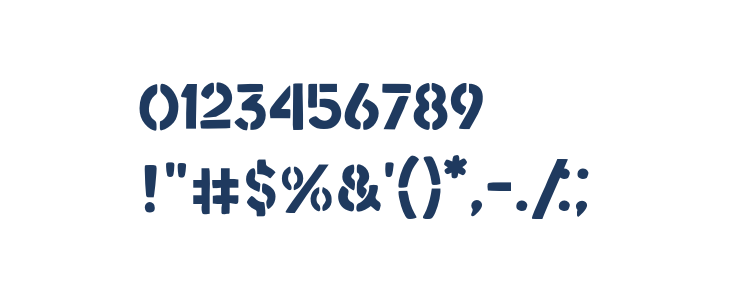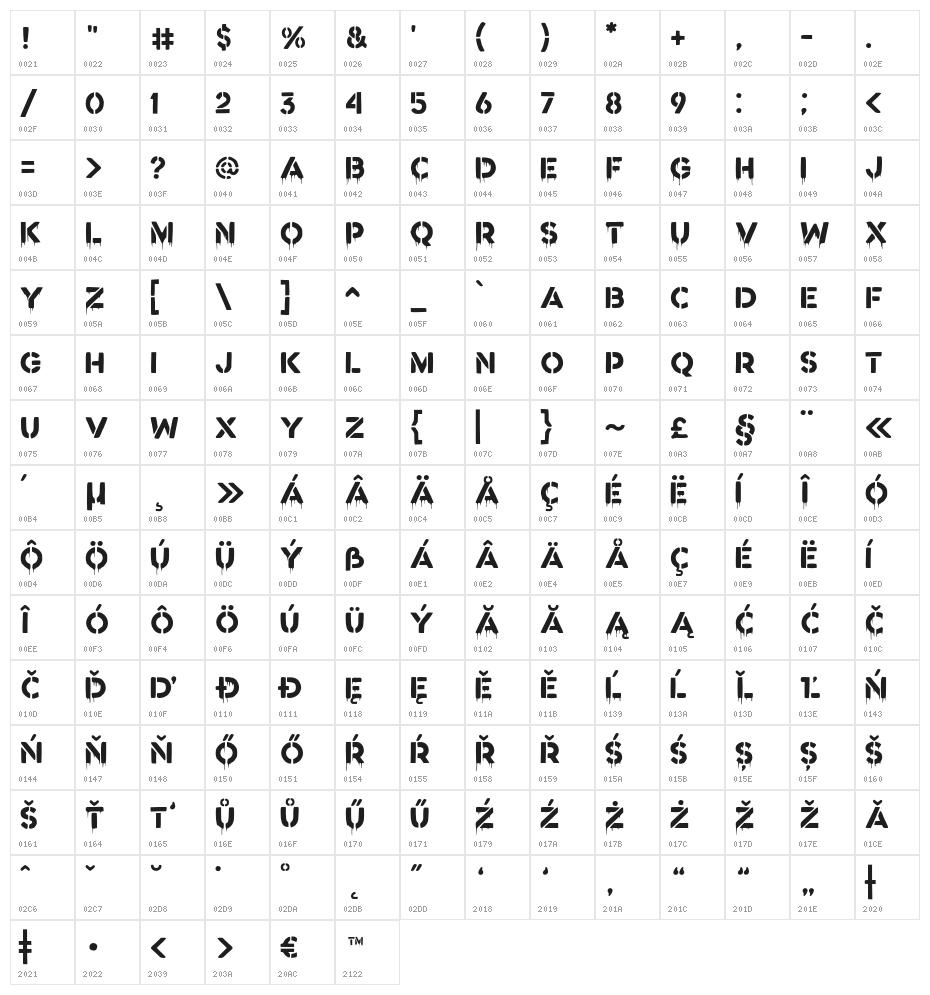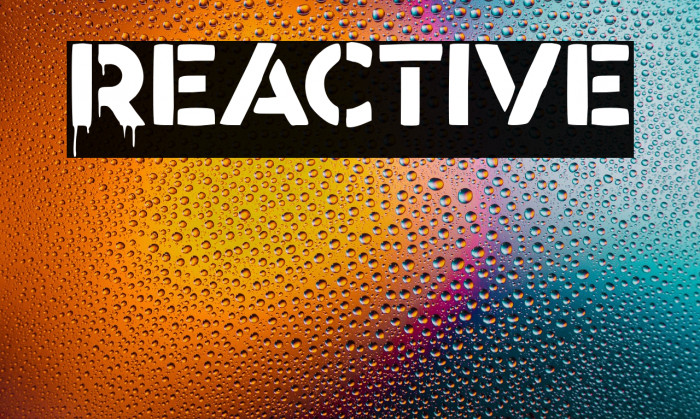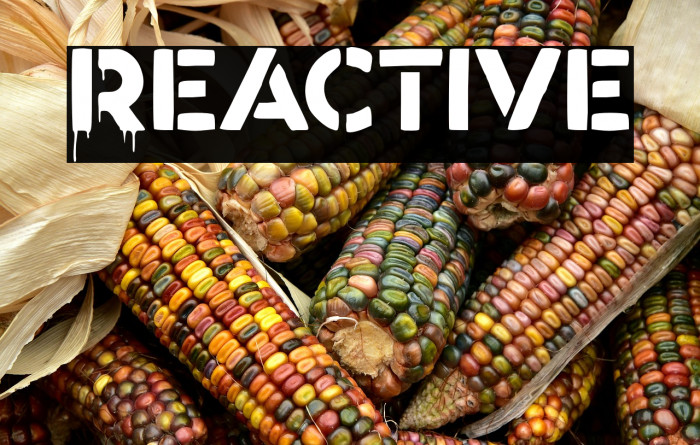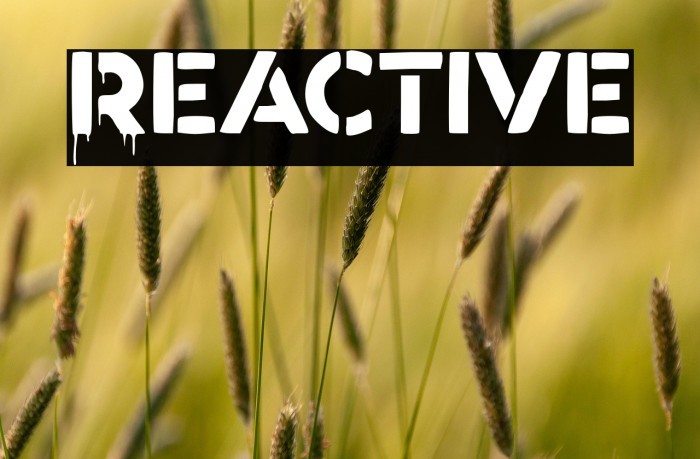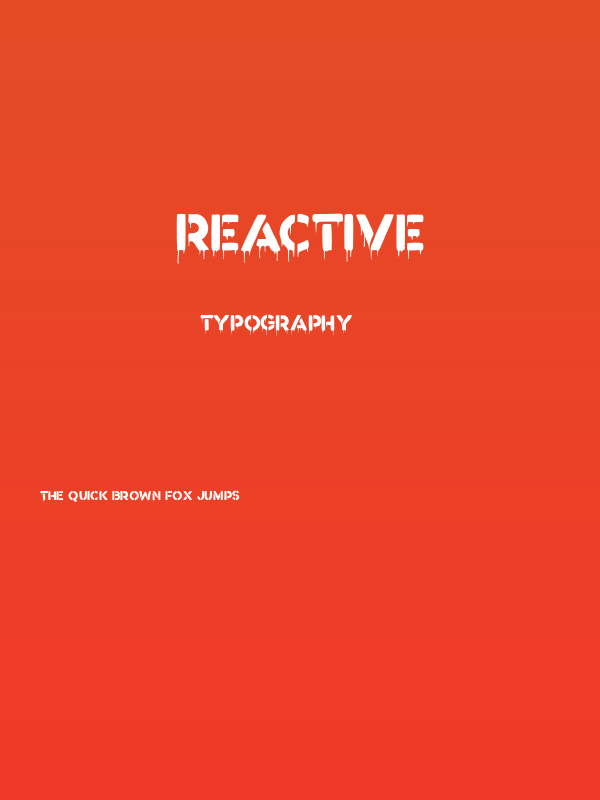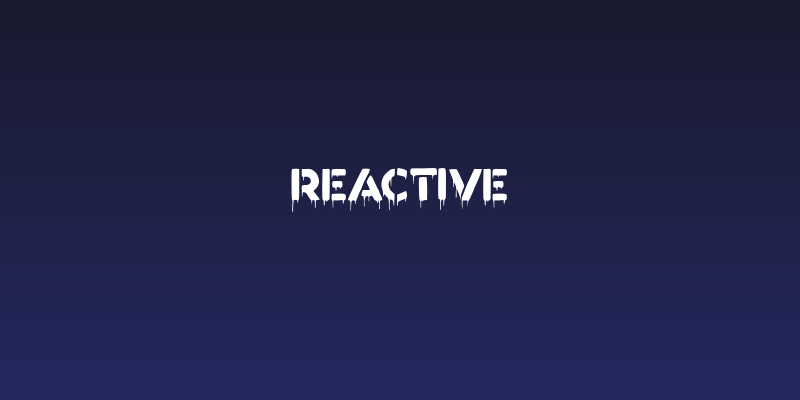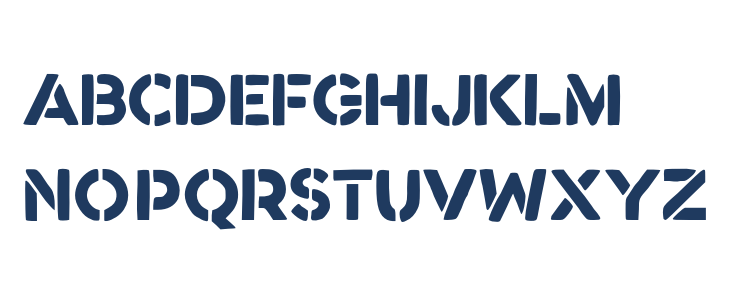
Reactive Font
Reactive Description
This font features a bold and dramatic style with a dripping effect that gives it a unique, edgy appearance. The uppercase letters are designed with sharp angles and a stencil-like cutout, enhancing its boldness. The numbers and special characters follow the same design principle, maintaining consistency across the font. The dripping effect adds a sense of movement and fluidity, making it ideal for themes that require a touch of horror or grunge. The overall design is striking and memorable, perfect for capturing attention.
| Use Case | Headlines, Posters, Logos |
| Proposed Projects | This font is perfect for Halloween-themed designs, horror movie posters, edgy branding, and any project that requires a dramatic and eye-catching typeface. |